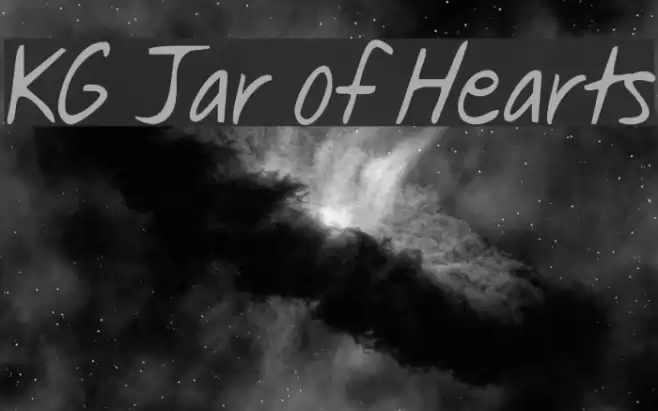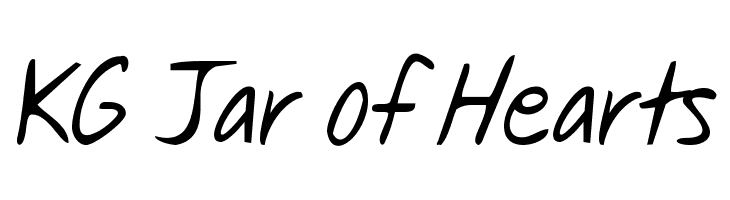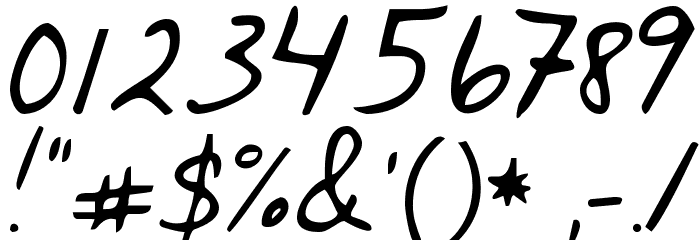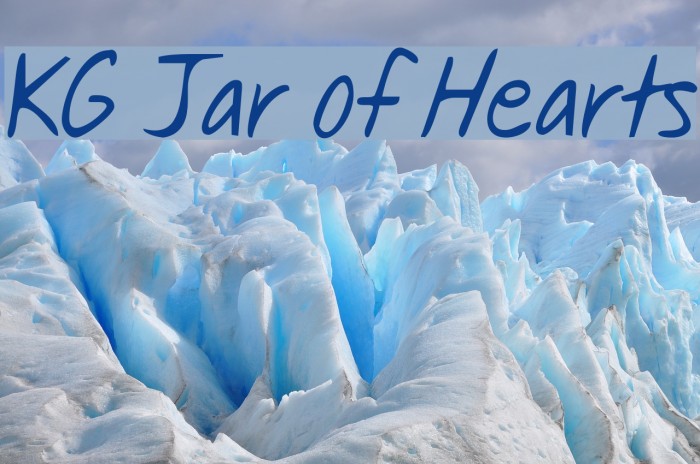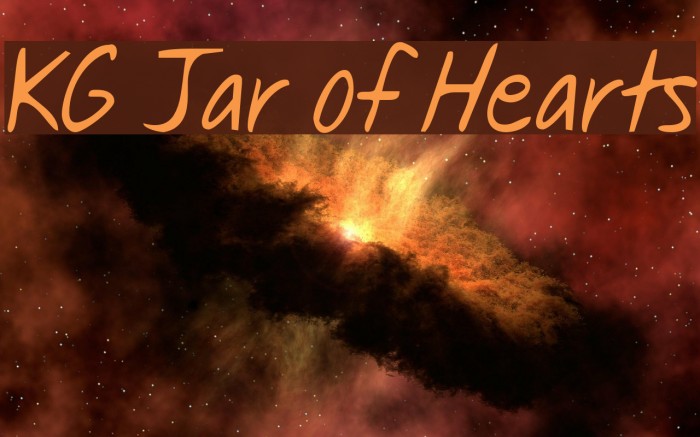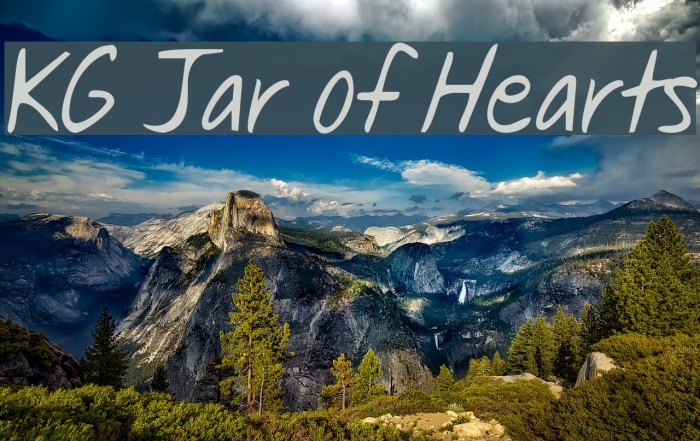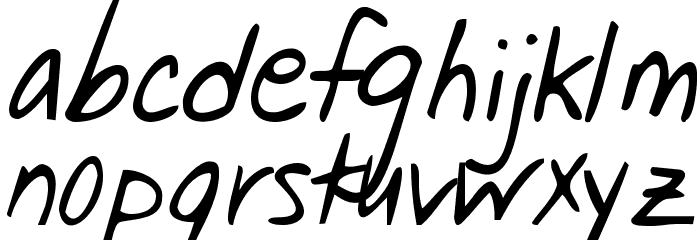
KG Jar of Hearts Font
KG Jar of Hearts Description
This font features a playful and casual handwritten style, characterized by its smooth, flowing lines and slightly irregular shapes. The uppercase letters are bold and dynamic, while the lowercase letters maintain a consistent rhythm, adding to the font's approachable and friendly appearance. The numerals are clear and easy to read, matching the overall informal aesthetic. Special characters are included, maintaining the same lively and energetic feel. This font is perfect for projects that require a personal touch or a sense of whimsy.
A playful, handwritten font with smooth, flowing lines and a casual style from Uncategorized fonts.
- Proposed Projects: Ideal for greeting cards, invitations, personal branding, and playful social media graphics.
- Overall Style: Casual, Playful
- Use Case: Headlines, Informal text, Personal projects